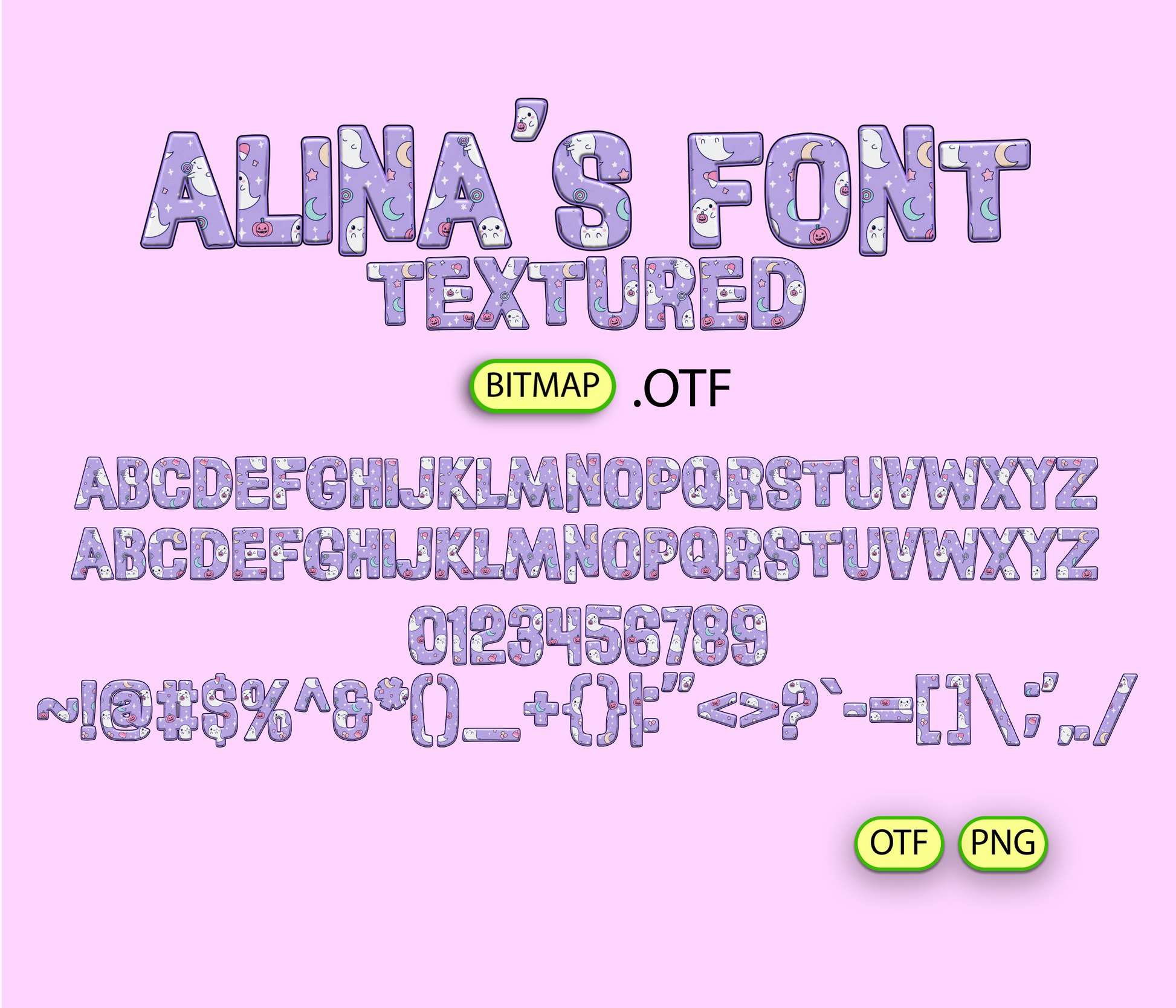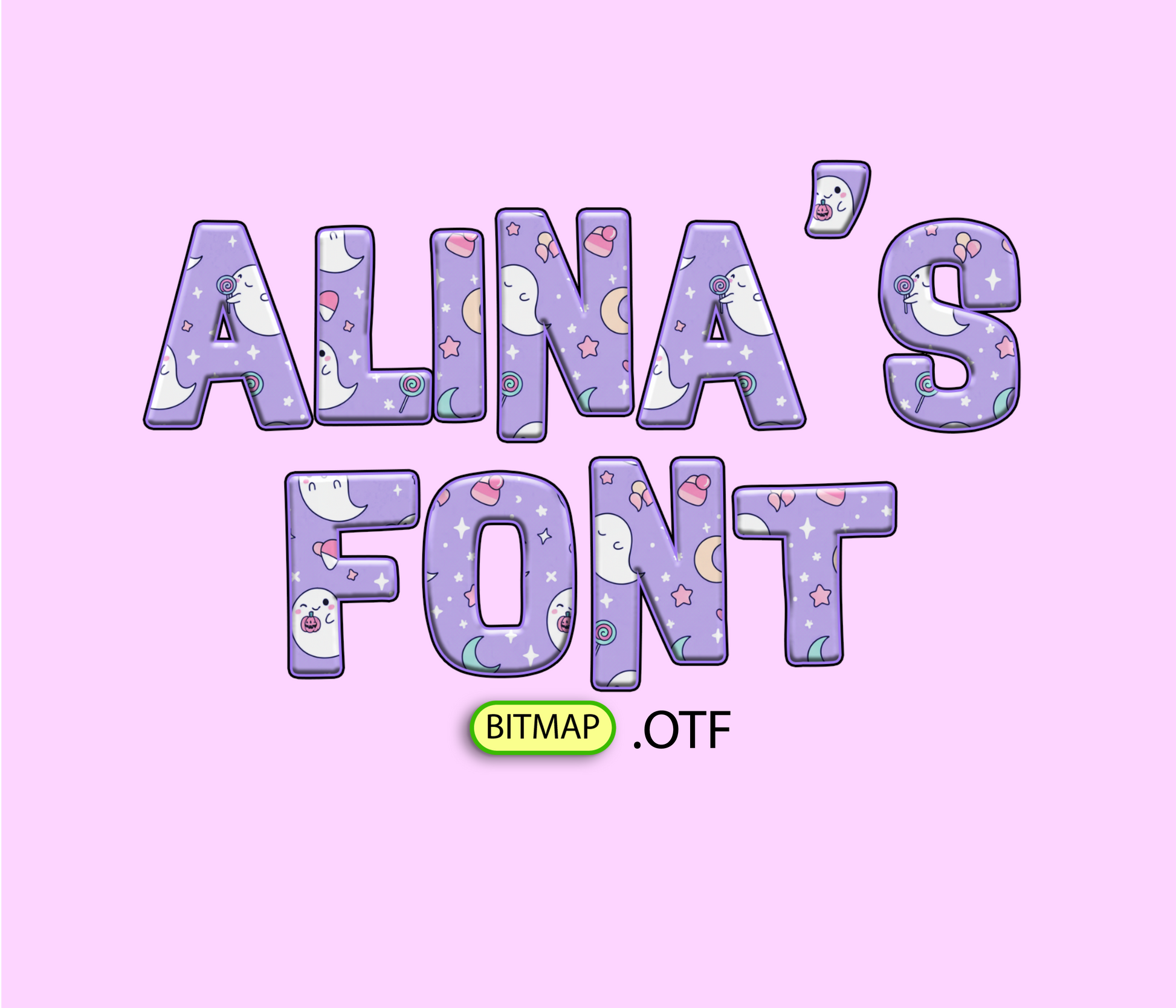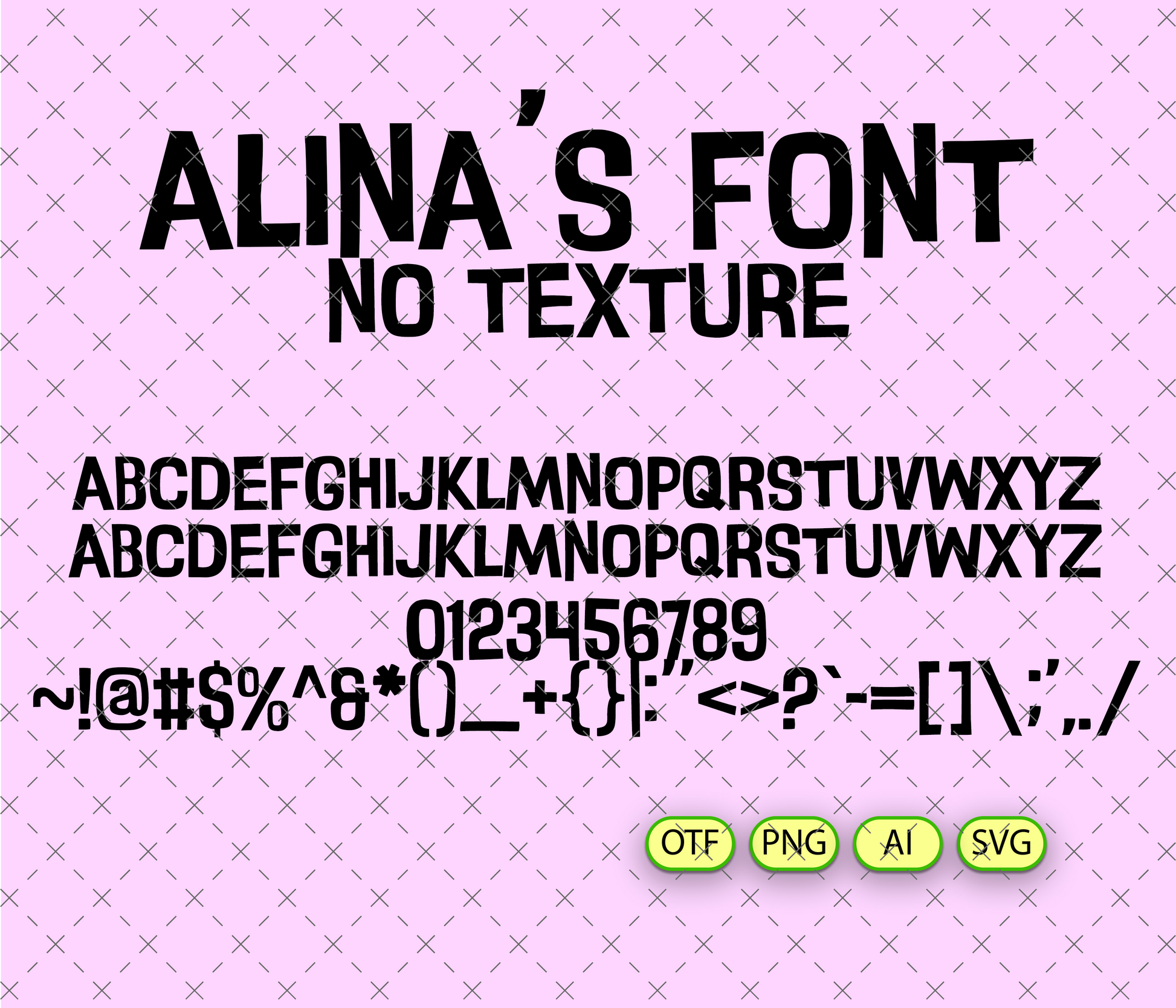
FREE Halloween Candy and Ghosts Pattern Font
Step into the spooky world of trick-or-treating with our Halloween Candy and Ghosts font, capturing the essence of sweet treats and haunting spirits. Perfect for Halloween fans, party planners, event organizers, and designers, this font brings the playful, eerie spirit of October festivities to your projects. Create frightful materials, merchandise, or digital content with the magical energy of candy-filled celebrations.
Our Halloween Candy and Ghosts font features whimsical, spooky lines and treat-inspired characters reflecting the world of haunted celebrations. Ideal for:
- Event Promotions: Create spooky invites, posters, and banners for Halloween parties, trick-or-treat events, and costume contests that capture the spirit of ghostly fun
- Merchandise Design: Perfect for t-shirts, posters, and accessories that showcase the playful aesthetic of candy buckets and friendly ghosts
- Digital Media: Enhance websites, blogs, and social media with festive headers and graphics that express the joy of Halloween traditions
- Seasonal Content: Add authentic flair to party decorations, treat bags, and creative designs inspired by spooky celebrations
- Personal Projects: Bring haunted excitement to scrapbooking, DIY crafts, and home decor inspired by the world of trick-or-treating adventures
Our font pays tribute to the iconic world of Halloween festivities, empowering your designs with its spooky and playful spirit. Whether crafting promotional materials, designing merchandise, or adding a festive touch to personal projects, this font communicates the sweet essence of trick-or-treat celebrations. Ready to inject Halloween magic into your creations? This font is your key to exciting, impactful design.